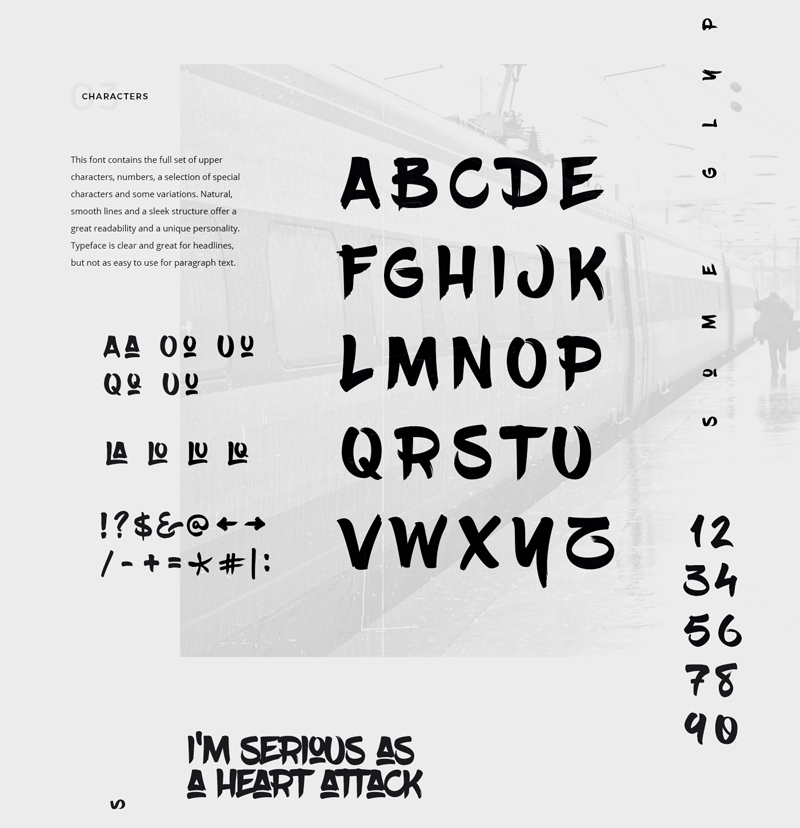
Blow Brush Free Font
Nice job by designer Petar Acanski on this BlowBrush free font! It’s a hand-written, marker style font with natural lines and edges that will make your text feel unique and give it a nice flow. This font comes with a the full set of upper and lower characters, numbers, ligatures, special character and some variations.
Bold, quirky and free for download – Blow Brush is a hand written marker style font inspired by the hip hop culture and graffiti community. Even though the main intention was to bring that street style to your content, the importance of font functionality